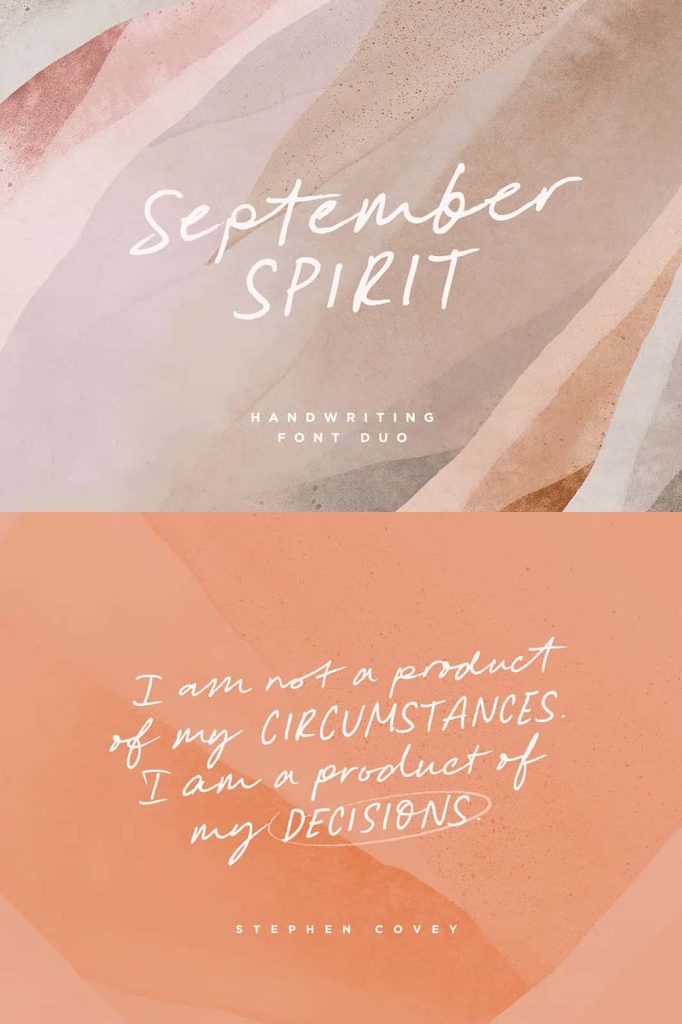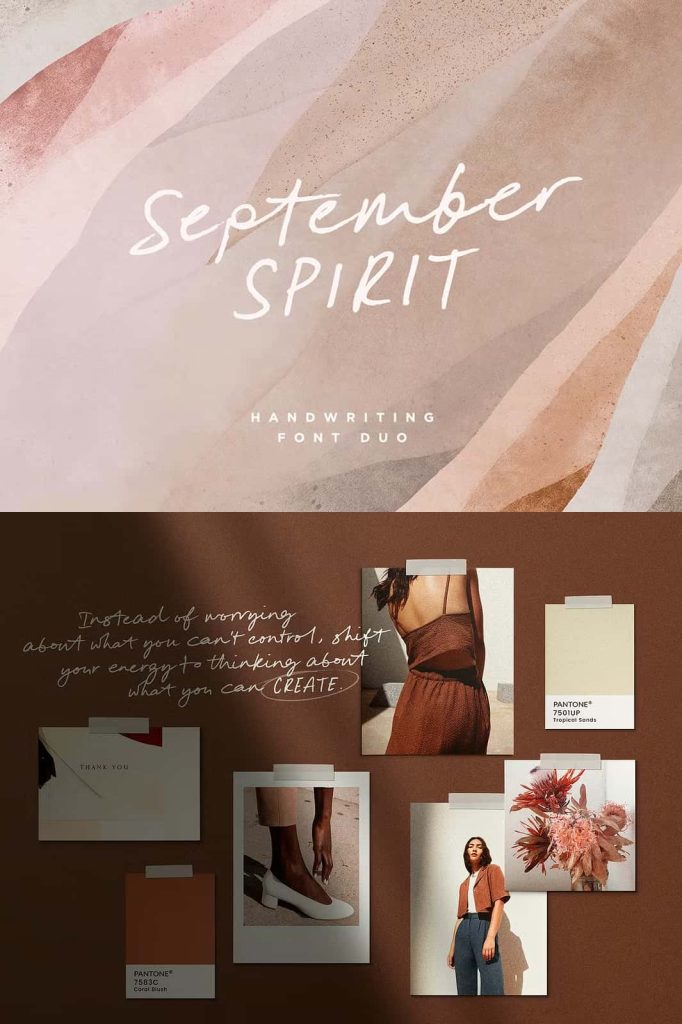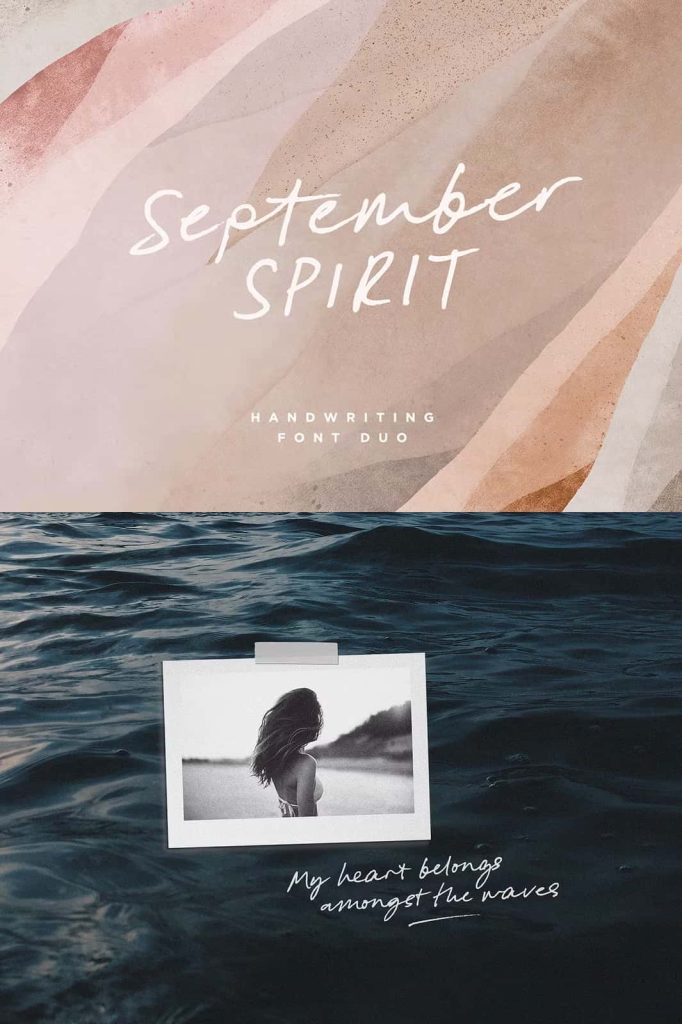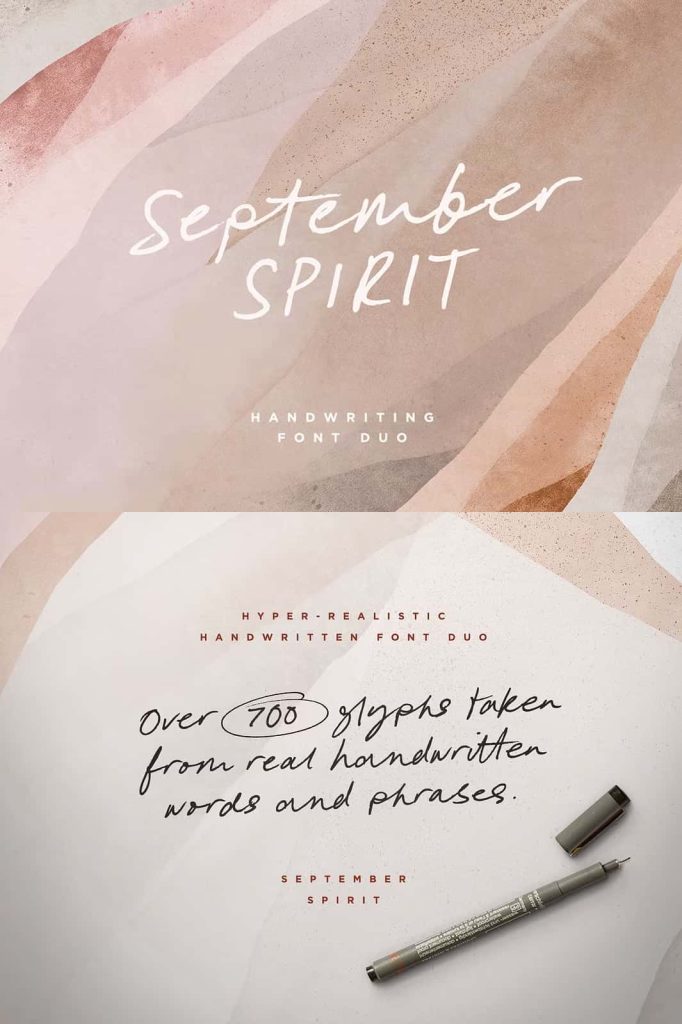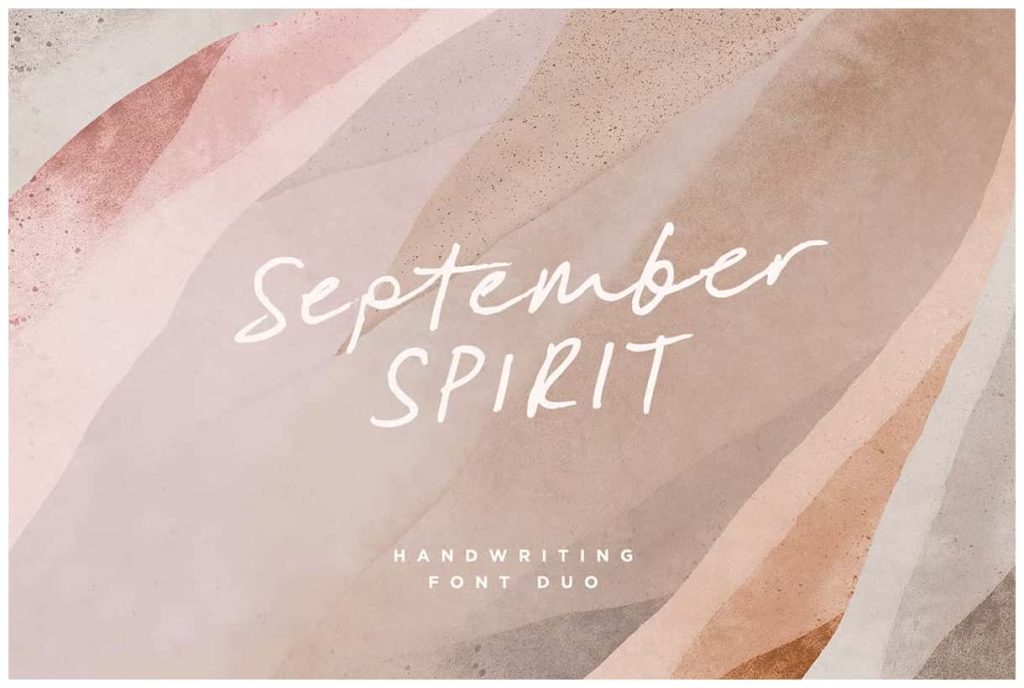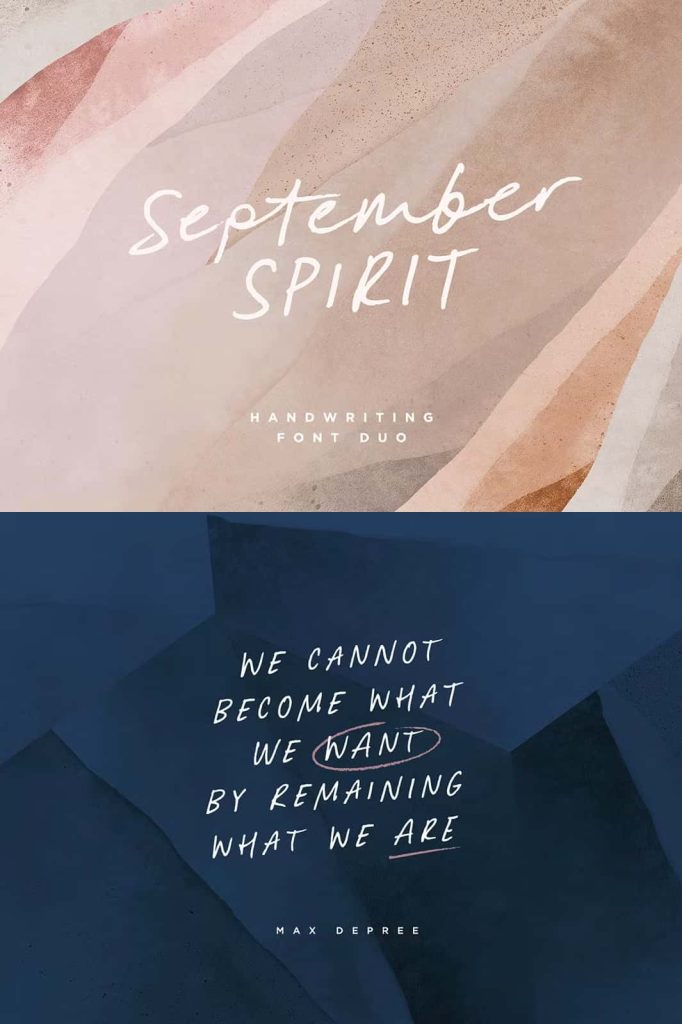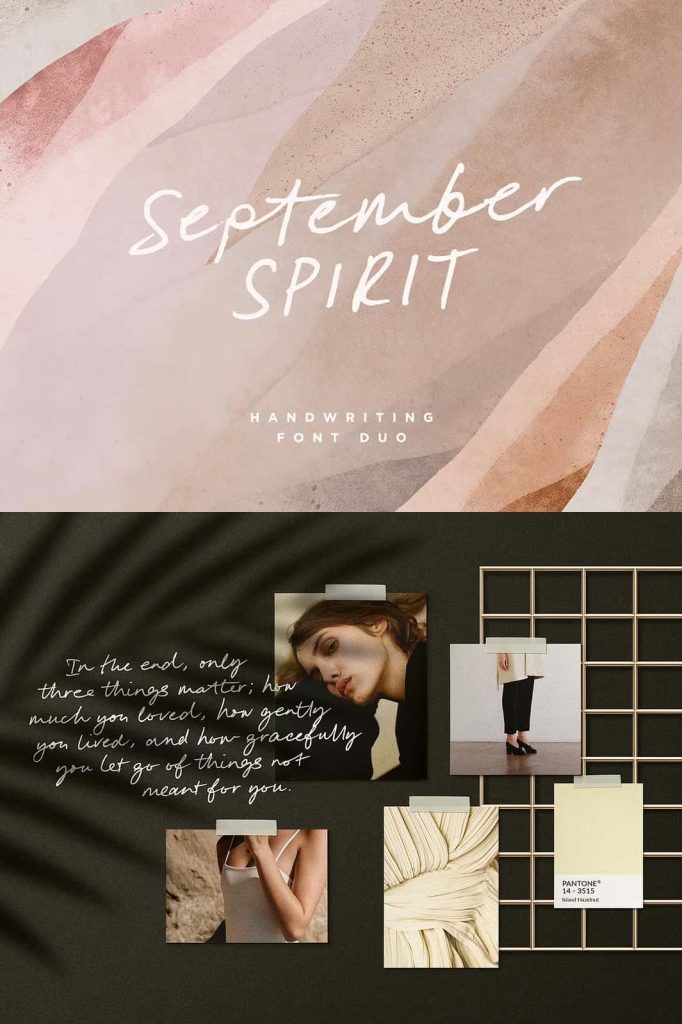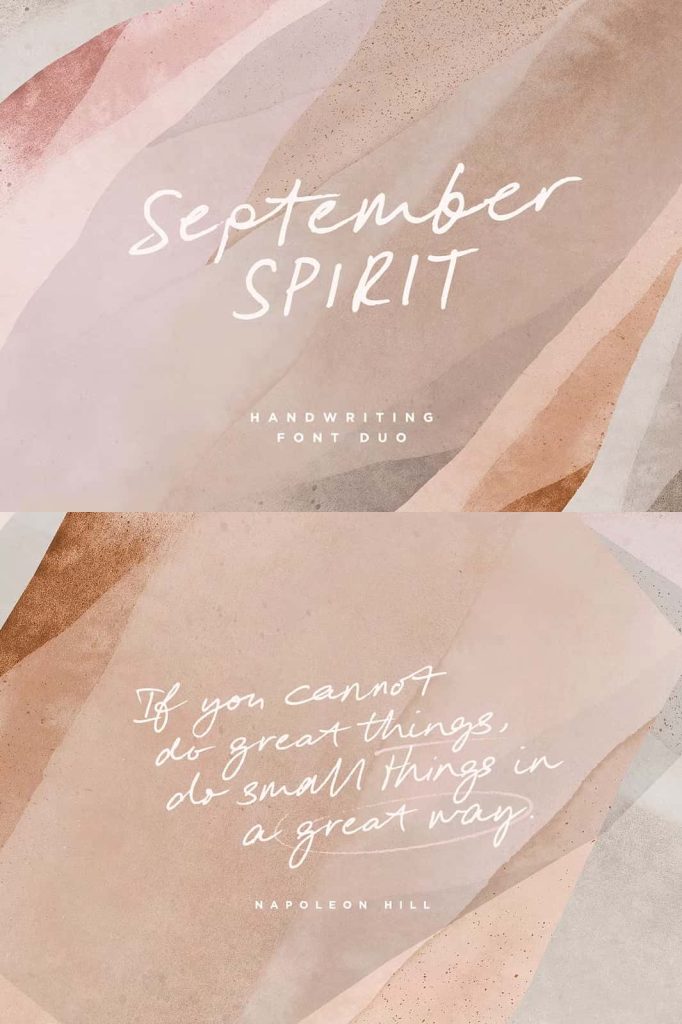
Introducing the September Spirit Font Duo! A hyper-realistic handwritten font duo, which utilises a large range of ligatures (uniquely designed letter combinations), and alternate characters—all taken from real handwritten words—to achieve an incredibly natural handwritten style.